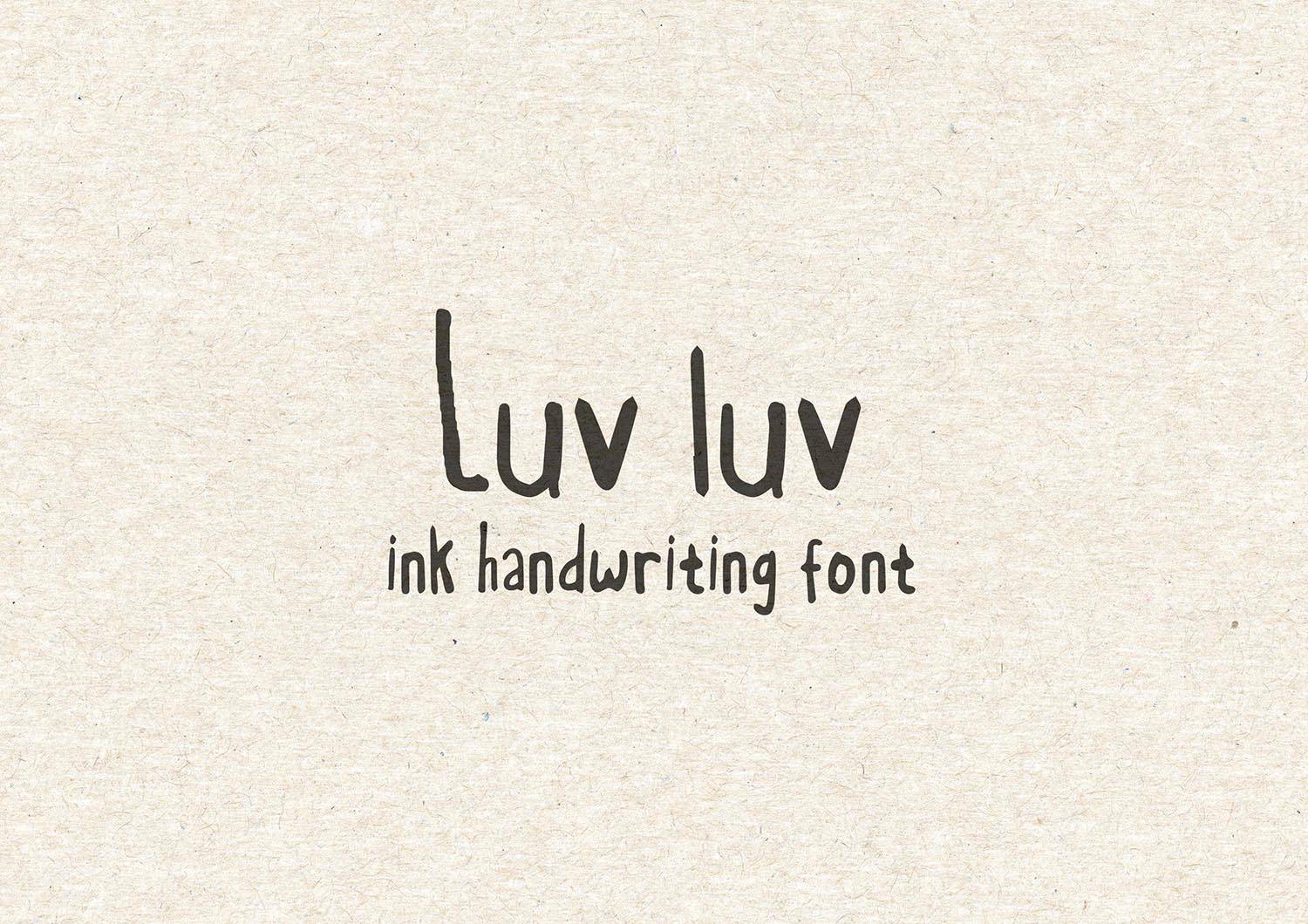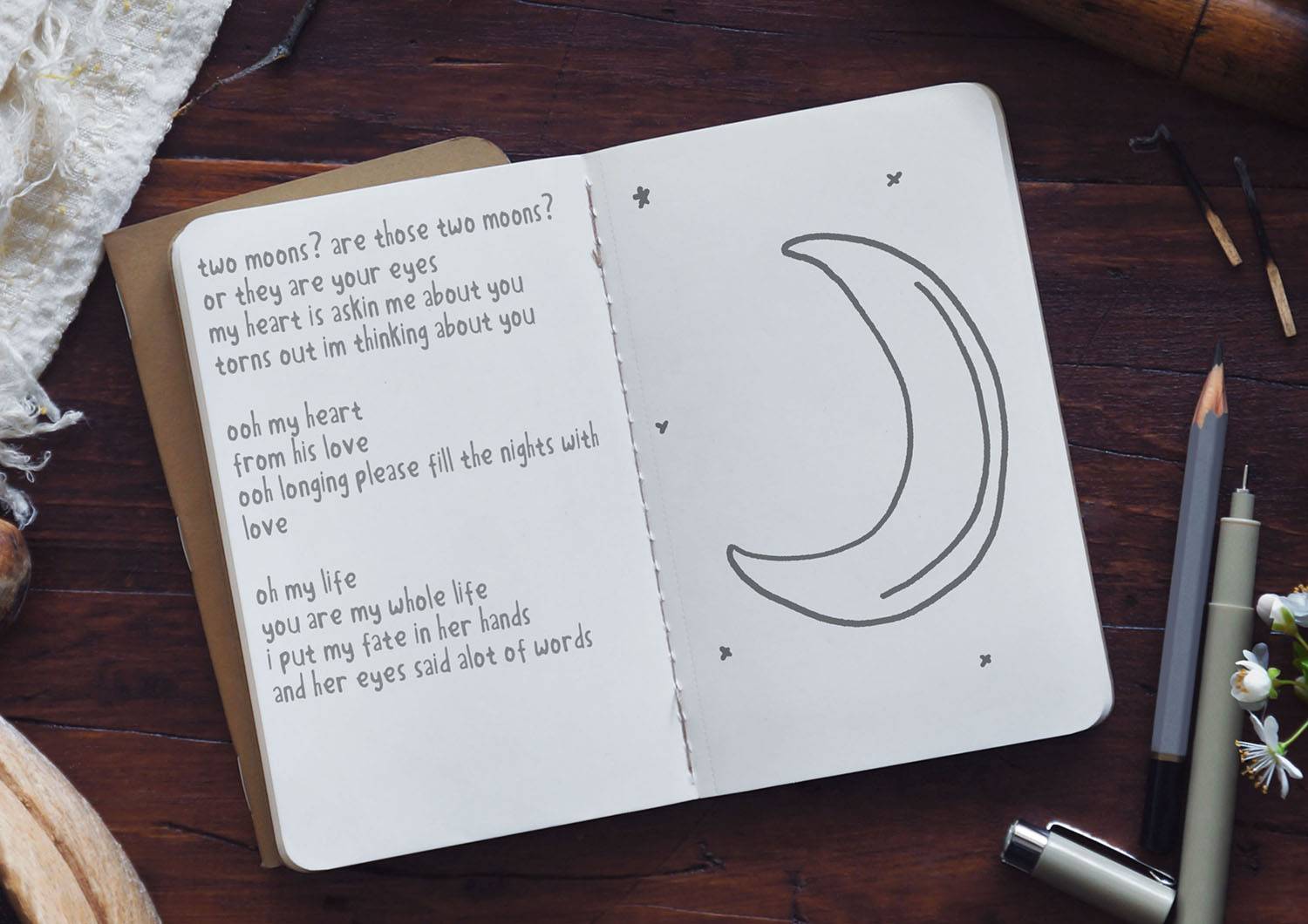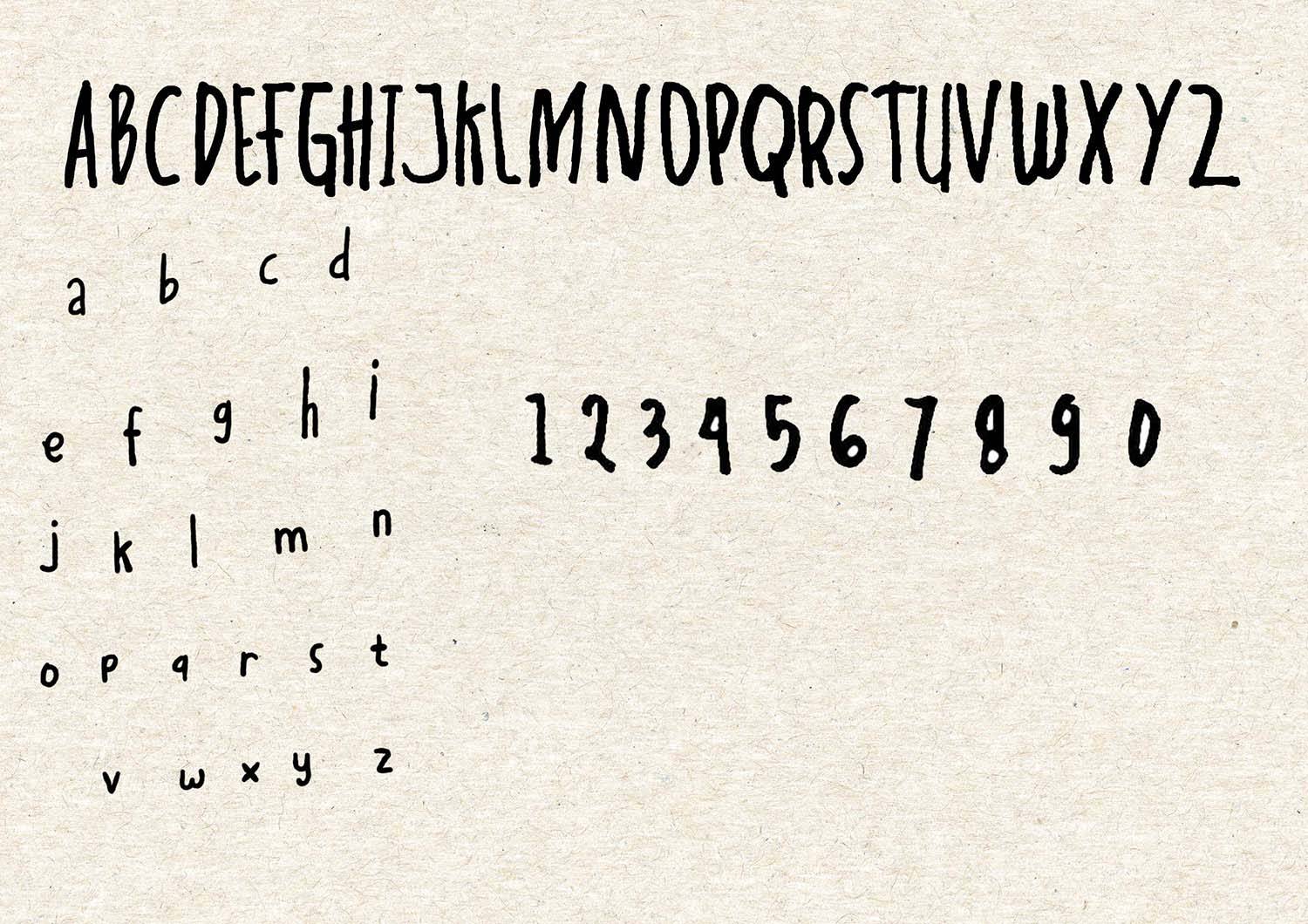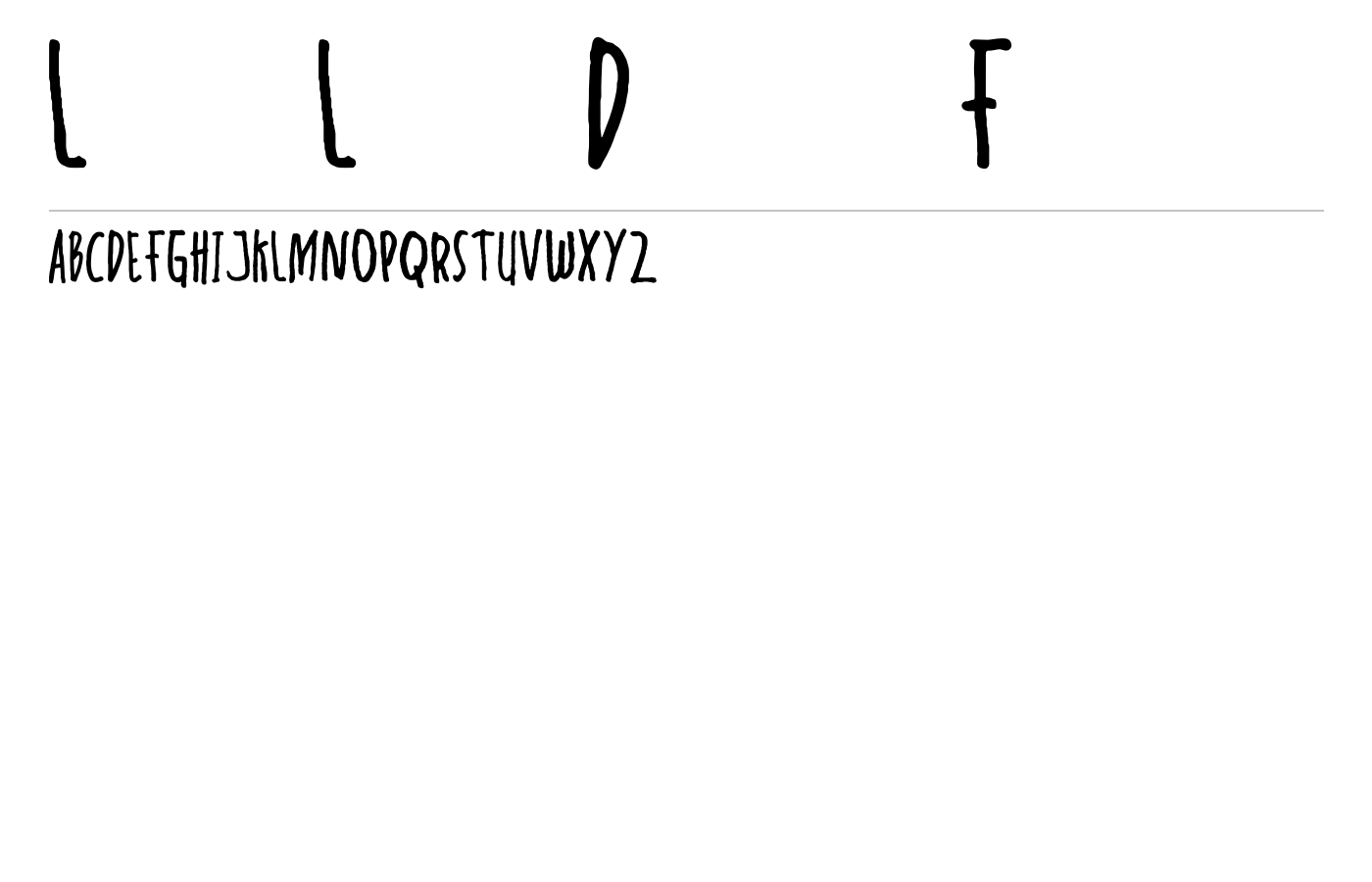
Luv luv is a playful, hand-drawn sans serif font featuring tall, narrow letterforms with irregular strokes that give it a casual, whimsical feel. Its uneven lines and quirky character shapes make it perfect for creative and informal designs like children’s books, greeting cards, or fun branding projects that seek a friendly and approachable vibe. This font adds a unique, personal touch to headlines and display text where a lively, handcrafted look is desired.